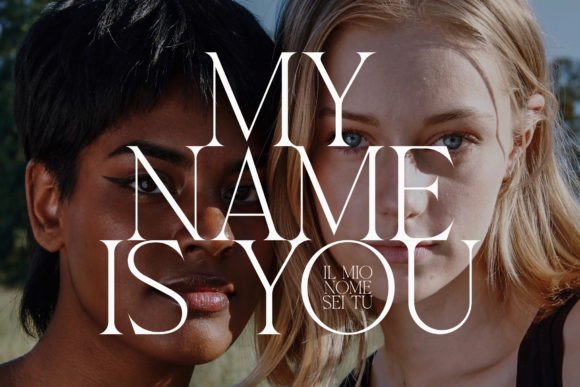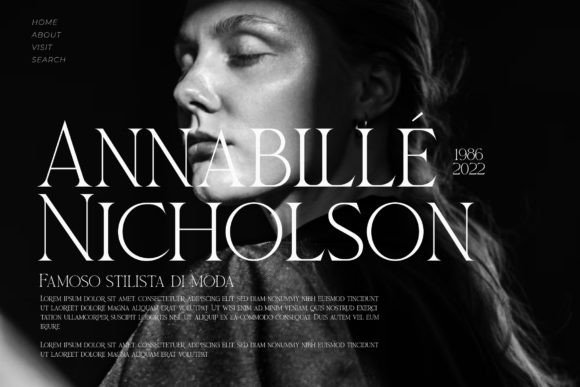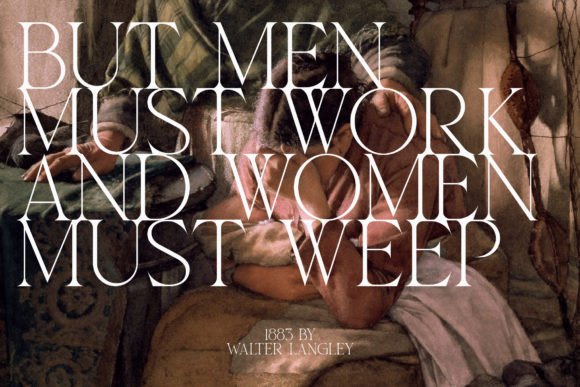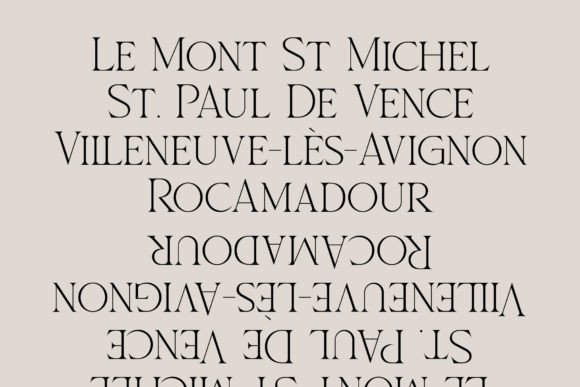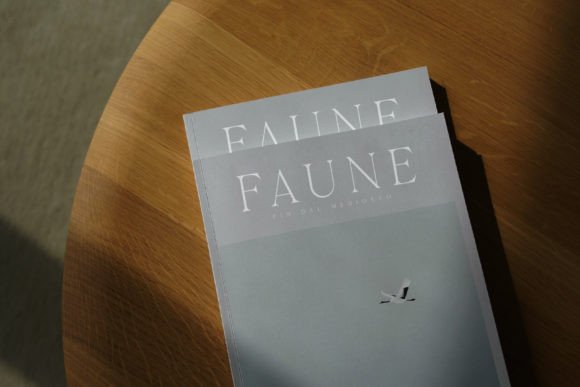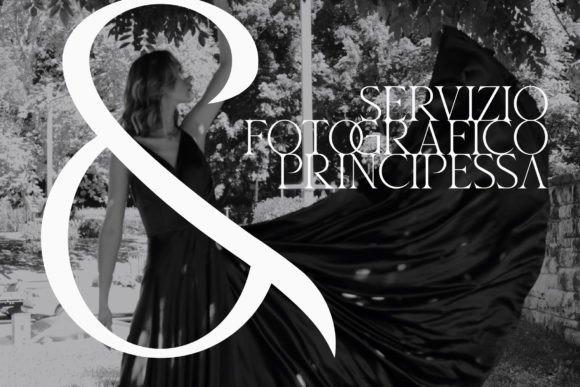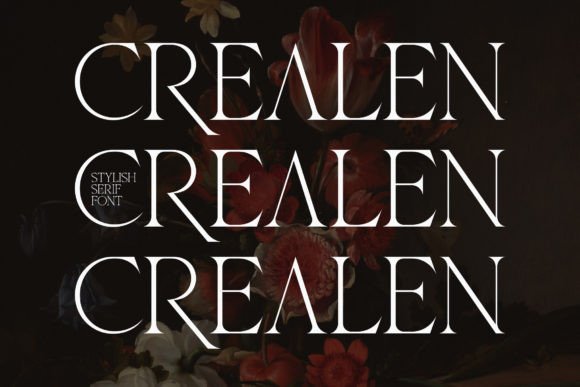
Introducing Crealen Font: Elevate Your Designs with Elegance and Sophistication
In the world of typography, a font can make or break a design. It’s the foundation upon which the entire visual identity is built. For designers and crafters seeking to create something truly special, Crealen Font is a game-changer. This stylish serif font boasts a unique style and modern look, perfect for those who aim to infuse their projects with elegance and luxury.
The Essence of Crealen Font
Crealen Font is not just another addition to the vast sea of typefaces. It’s a carefully crafted serif font designed to bring a touch of sophistication and refinement to any project. Whether you’re working on elegant and luxury logos, book or movie title designs, fashion brands, magazines, clothes, lettering, quotes, or anything in between, Crealen Font is the perfect companion.
One of the standout features of Crealen Font is its versatility. Its unique blend of classic serif elements and modern flair makes it adaptable to a wide range of applications. Here are just a few ways you can use Crealen Font to elevate your designs:
- Elegant and Luxury Logos: Create a lasting impression with a logo that exudes sophistication and class. Crealen Font’s distinctive style ensures your brand stands out from the crowd.
- Book or Movie Title Design: Add a touch of glamour to your book covers or movie titles. The font’s elegant appearance is sure to captivate your audience.
- Fashion Brands: Perfect for fashion brands looking to convey a sense of style and luxury. Use Crealen Font to create stunning brand identities, packaging, and advertising materials.
- Magazines and Editorial Content: Elevate your magazine or editorial content with Crealen Font. Its readability and aesthetic appeal make it ideal for headlines, titles, and body text.
- Clothes and Apparel: From t-shirts to haute couture, Crealen Font can add a touch of elegance to any clothing line. Its versatility ensures it looks great on various materials and designs.
- Lettering and Quotes: Create beautiful lettering pieces or quote designs that inspire and captivate. Crealen Font’s unique style adds an artistic touch to any text.
Why Choose Crealen Font?
With so many fonts available, why choose Crealen? Here are a few compelling reasons:
- Unique Style: Crealen Font offers a fresh take on serif typography. Its distinctive style ensures your designs stand out in a crowded marketplace.
- Modern Look: Despite its classic roots, Crealen Font has a distinctly modern feel. This makes it perfect for contemporary designs that require a touch of sophistication.
- Elegance and Luxury: For projects that demand a high-end look, Crealen Font delivers. Its elegant appearance is sure to leave a lasting impression.
- High Versatility: As mentioned earlier, Crealen Font’s versatility is one of its strongest assets. It can be used across various mediums and applications.
Tips for Using Crealen Font
To get the most out of Crealen Font, here are a few tips:
- Experiment with Sizes: Crealen Font looks great in various sizes. Experiment with different sizes to find the perfect balance for your design.
- Play with Colors: While the font itself is elegant, the right color scheme can enhance its appearance. Don’t be afraid to experiment with different colors to find the perfect match.
- Mix and Match: Crealen Font pairs well with other fonts. Try mixing and matching it with complementary fonts to create visually appealing designs.
Crealen Font is more than just a typeface; it’s a design tool that can elevate your projects to new heights. Its unique blend of elegance, luxury, and modernity makes it the perfect choice for designers and crafters looking to create something special. Whether you’re working on a logo, magazine, fashion brand, or any other design project, Crealen Font is sure to leave a lasting impression. So why wait? Fall in love with Crealen Font and let it take your designs to the highest level!